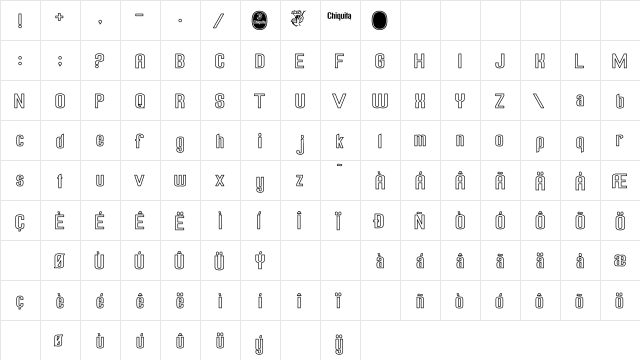
Chiquita Outlined Regular
Design Context for Chiquita Outlined Typeface
Chiquita Outlined is built around its visual character rather than neutral utility — its distinctive forms are designed to make an impression at display sizes.
Font Pairing: Pair with a clean neutral sans-serif for body copy to let Chiquita Outlined's character lead without overwhelming the composition.
Pro Tip: Use Chiquita Outlined exclusively at display sizes — it was designed to be seen, not read at length. Let a neutral companion handle body copy.